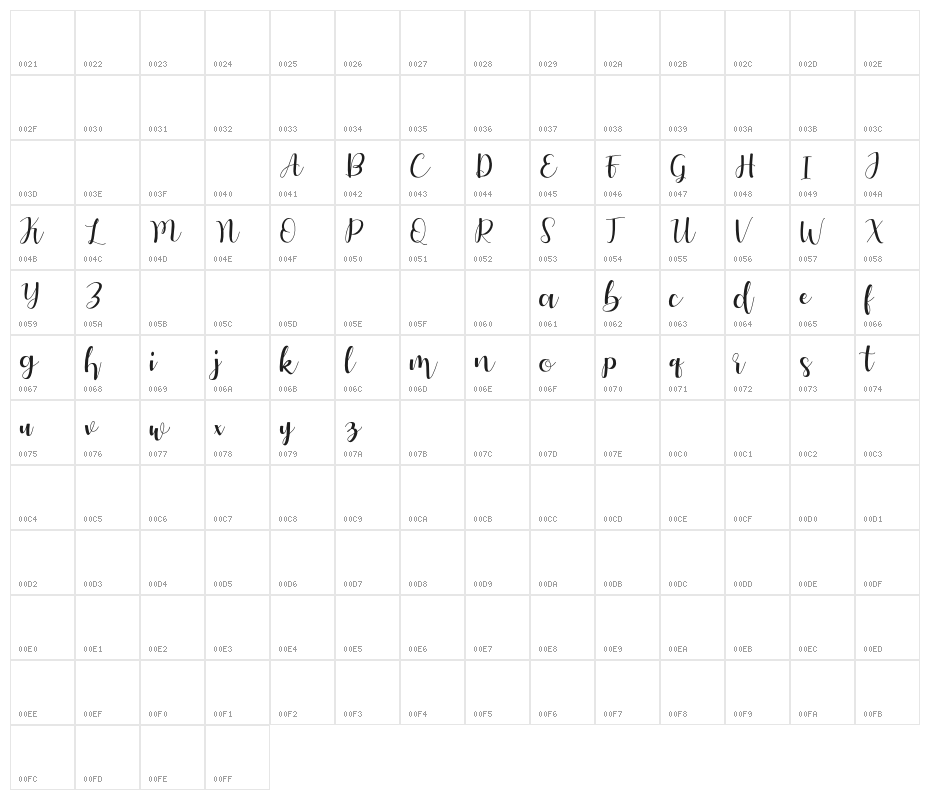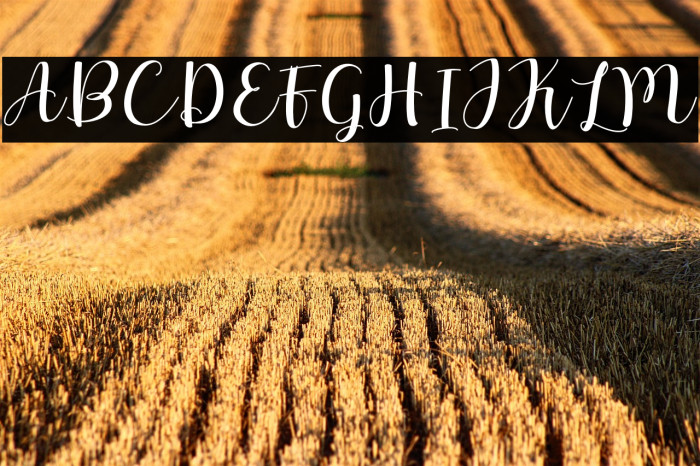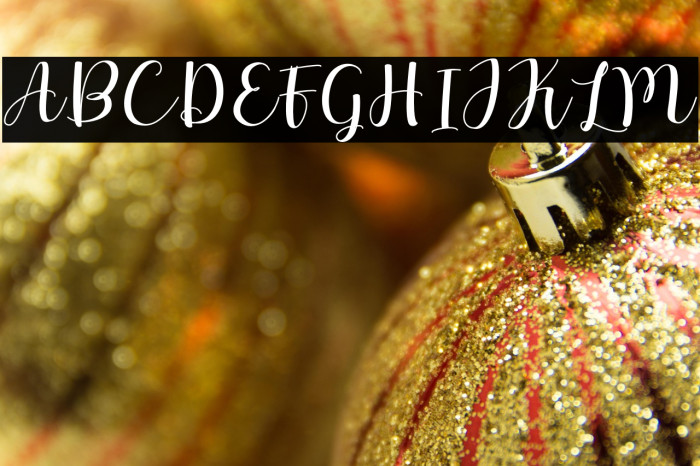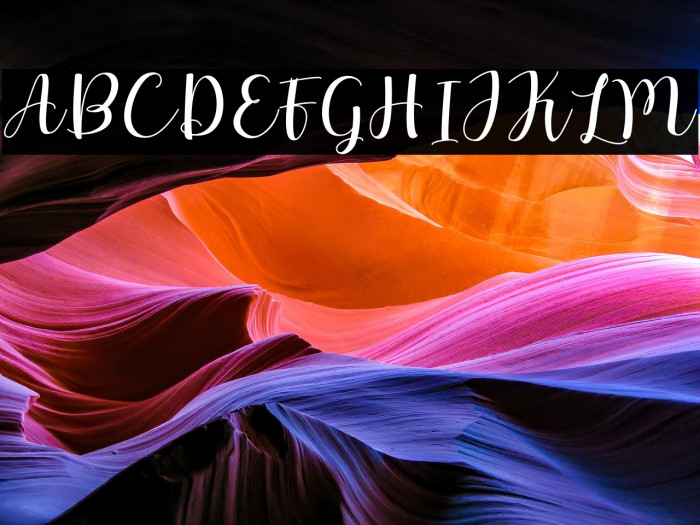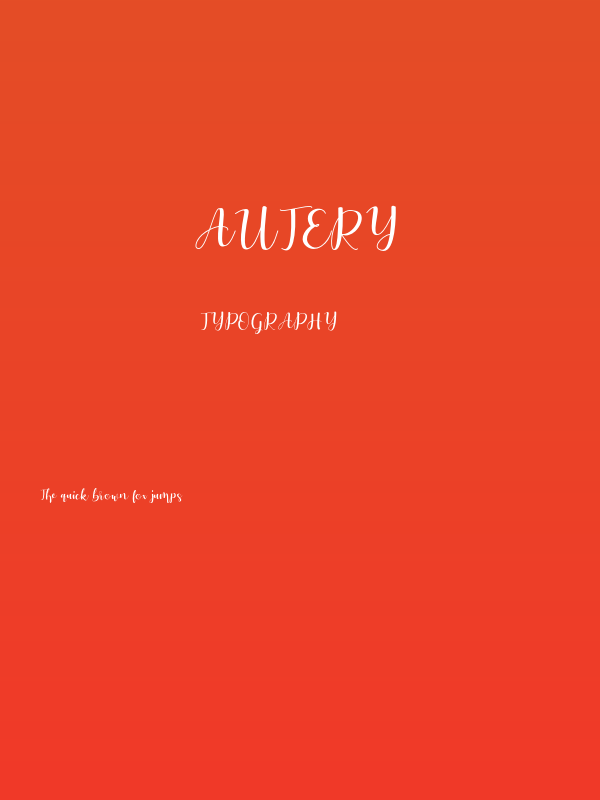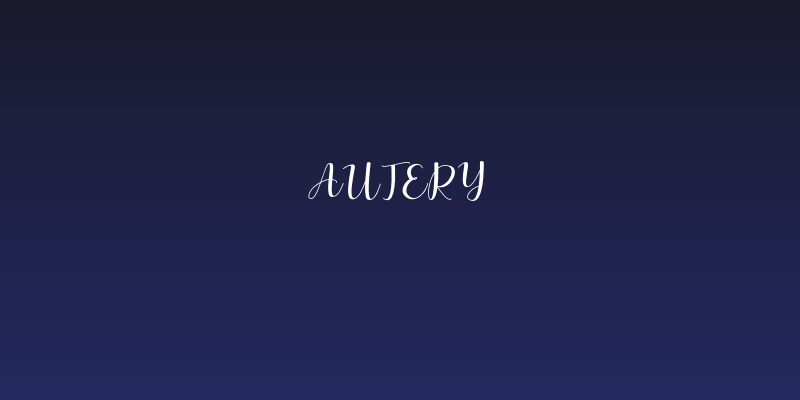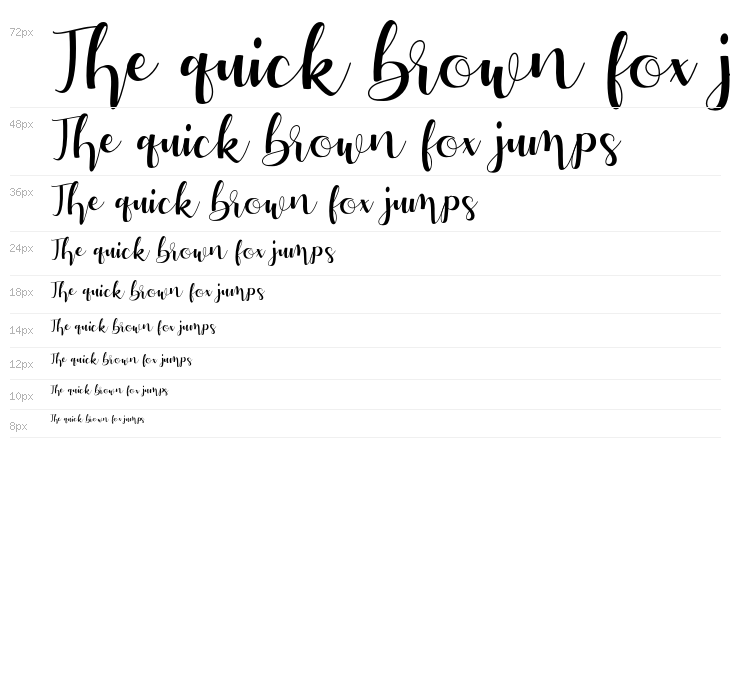
Autery Font
Autery Description
This font features an elegant and flowing script style, characterized by its smooth, cursive letterforms and graceful curves. The uppercase letters are tall and slender, with distinctive loops and swashes that add a touch of sophistication. The lowercase letters maintain a consistent flow, with some characters extending below the baseline, enhancing the font's dynamic appearance. The numerals and special characters are designed to complement the overall script style, ensuring a cohesive look across all text. This font exudes a sense of elegance and charm, making it suitable for a variety of creative applications.